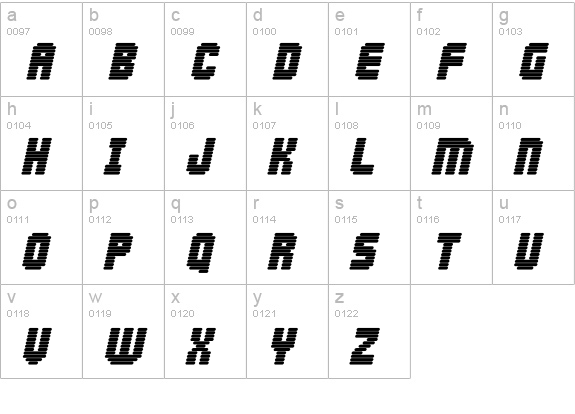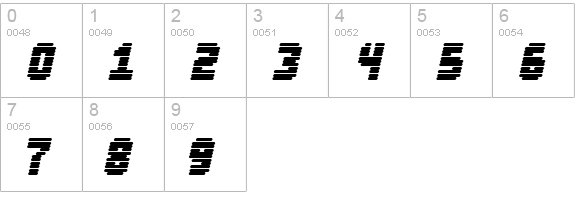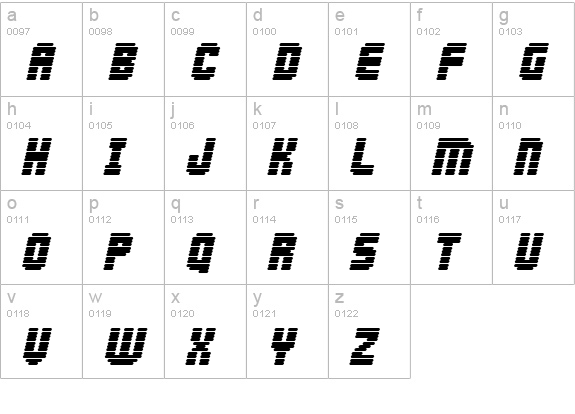
Abduction2000 Font Details
Abduction2000 font is a futuristic and edgy typeface that is perfect for adding a modern touch to your design projects. With its sleek lines and unique style, this font is sure to make a bold statement. The sharp angles and geometric shapes give Abduction2000 a distinct look that is both eye-catching and versatile. What sets Abduction2000 font apart is that it is not only visually stunning, but it is also free to download at FontsMarket.com. This means you can easily incorporate this striking font into your projects without breaking the bank. Whether you are working on a poster, website, or logo design, Abduction2000 font is sure to elevate your work to the next level. Download it now and unleash your creativity with this captivating typeface.